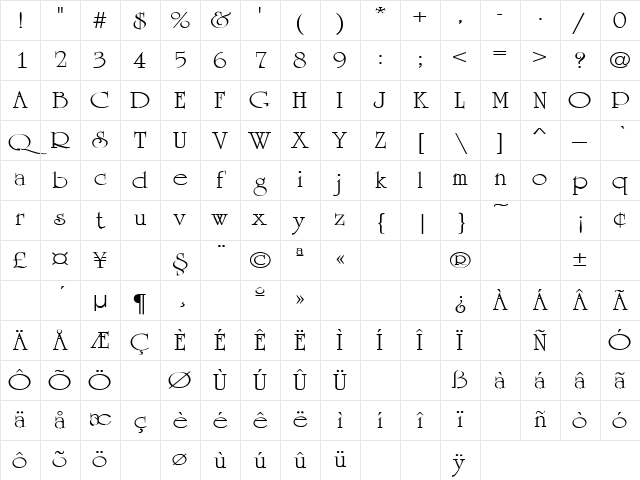
Machine Gun 7 Regular
Design Context for Machine Gun 7
Machine Gun 7 is a composed and adaptable typeface that performs quietly and consistently across a wide range of design contexts.